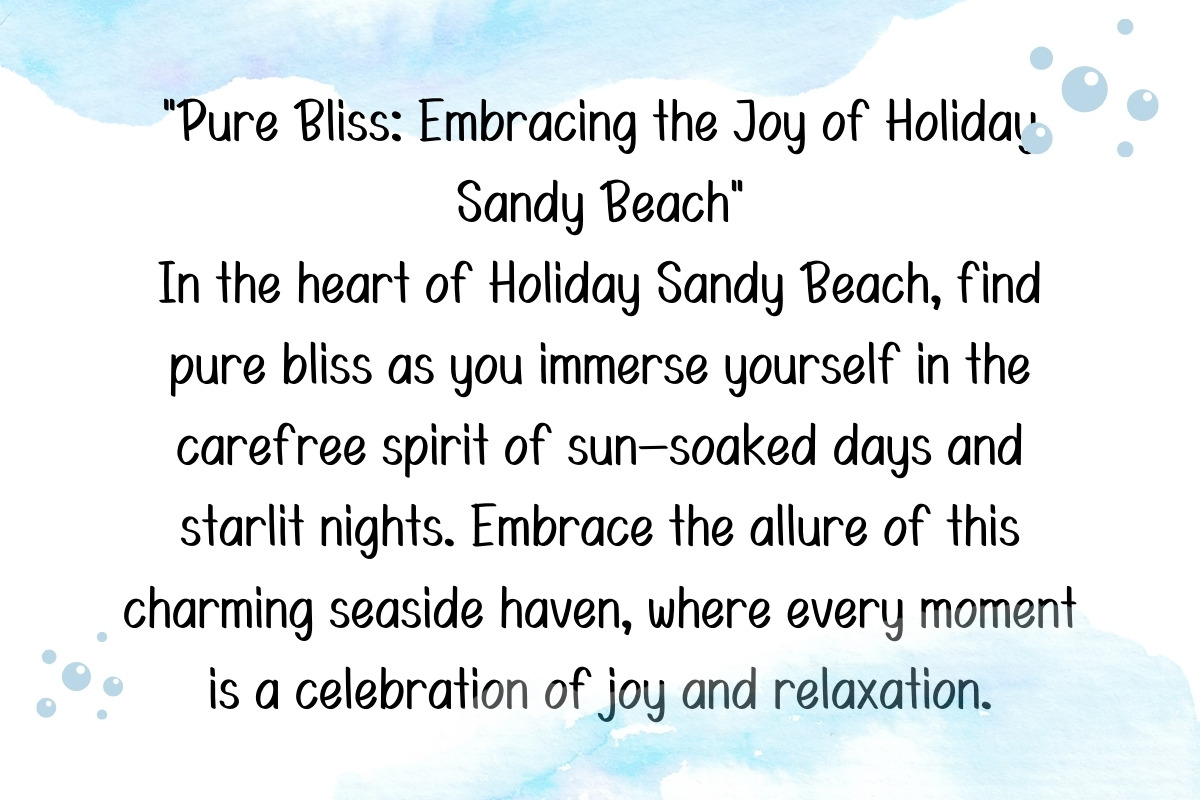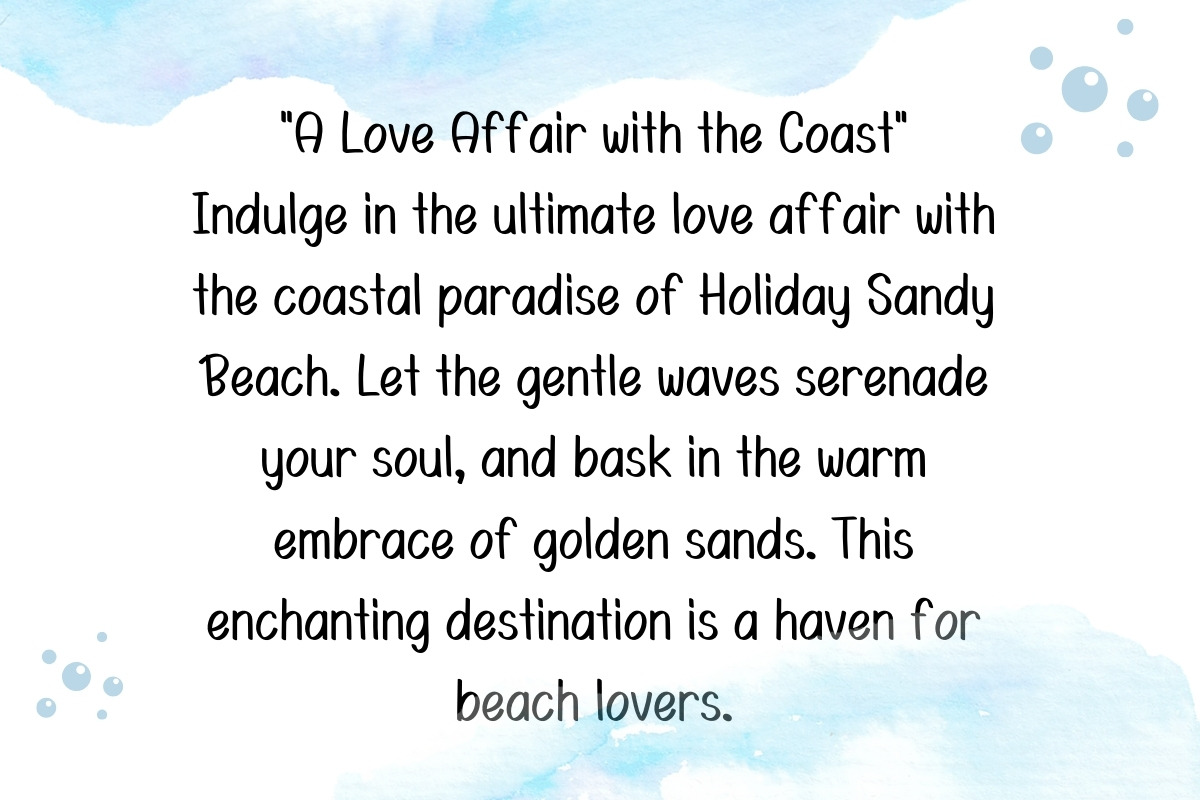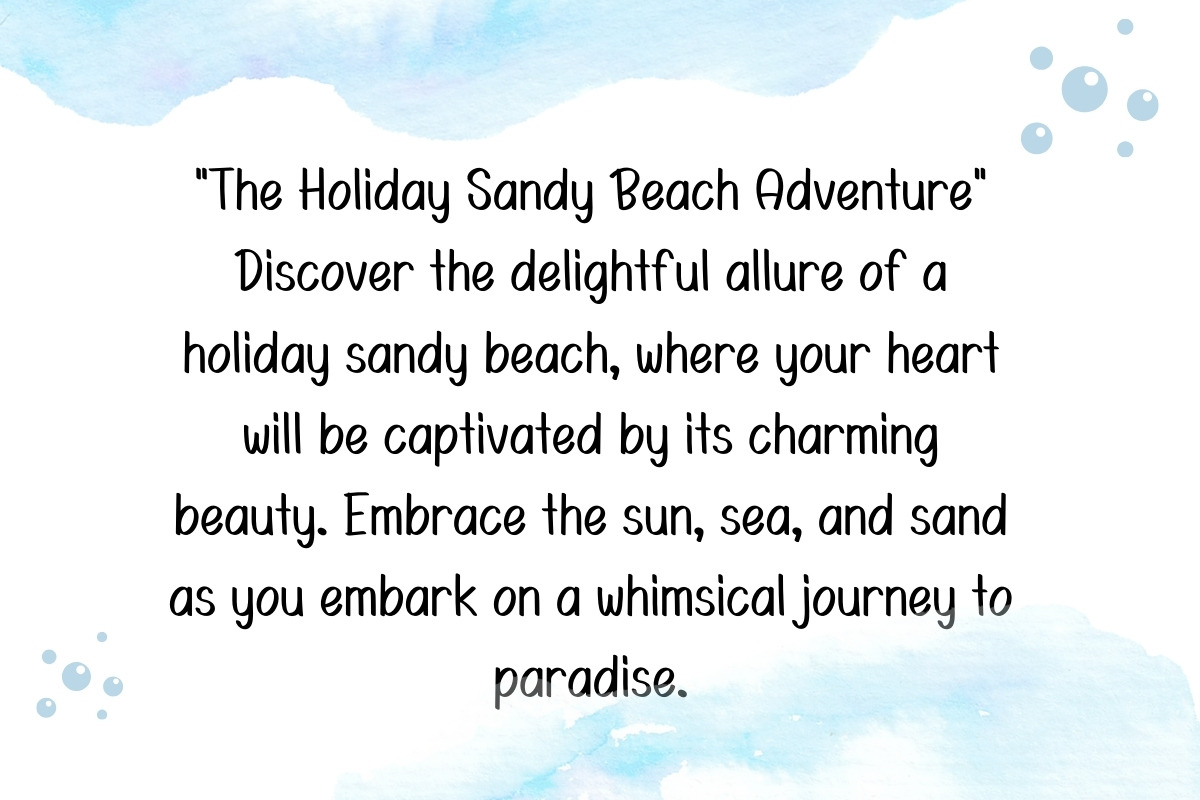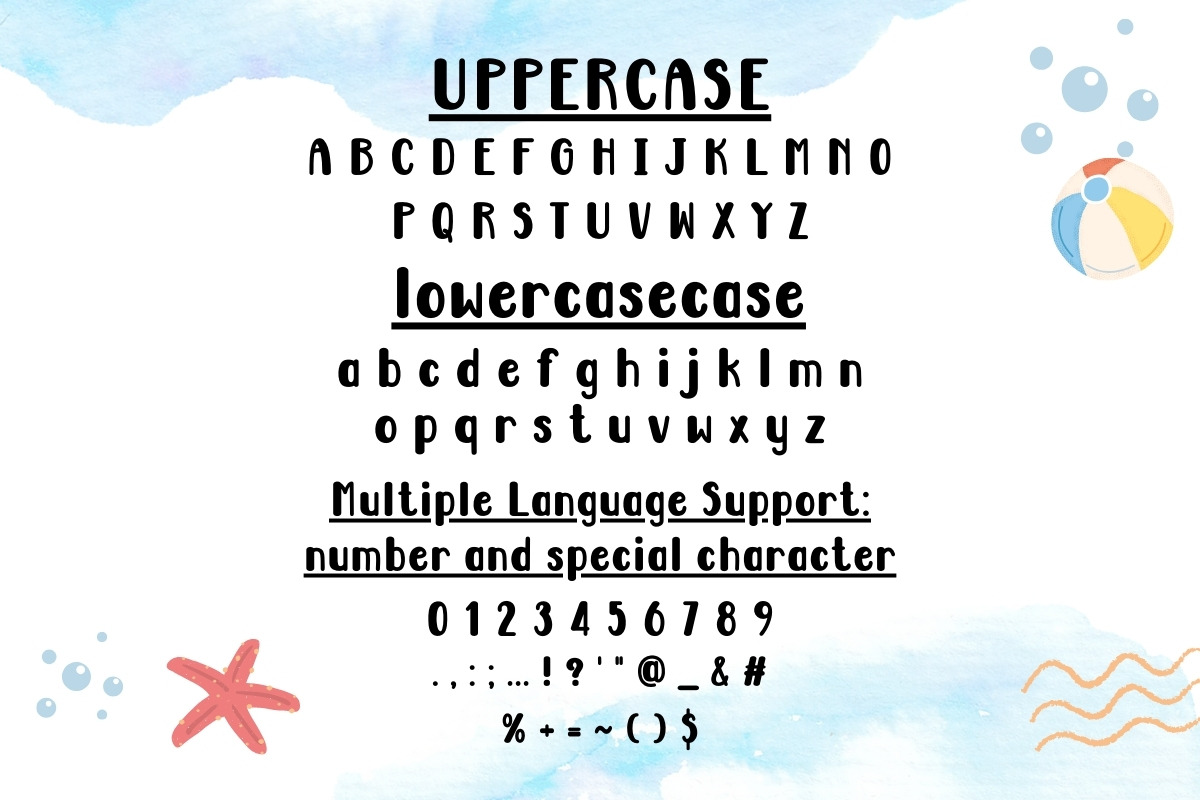
Holiday Sandy Beach - Handwritten
Calling all creative souls! Come and embrace the charming handwritten font, 'Holiday Sandy Beach.' This delightful font captures the essence of handwritten sweetness with a touch of seaside charm. Dive into the whimsical world of 'Holiday Sandy Beach' and let your designs exude a warm and playful vibe.